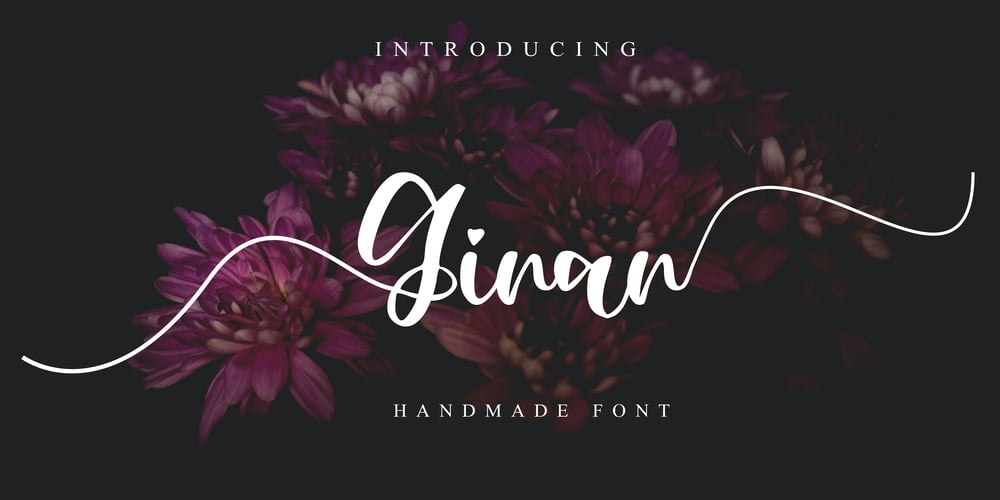
Ginan
Ginan font
Ginan Font Family was designed by Mariyana and published by Goodigital13. Ginan contains 1 styles and family package options. This font is very suitable for photography needs, decorating food designs, products, sports, weddings to poster designs.